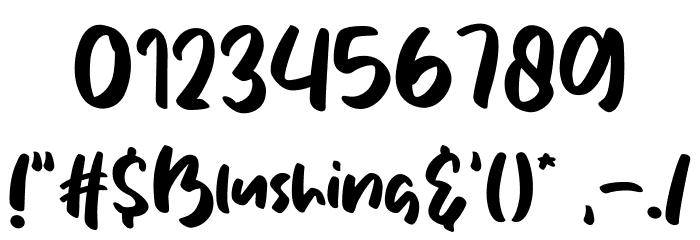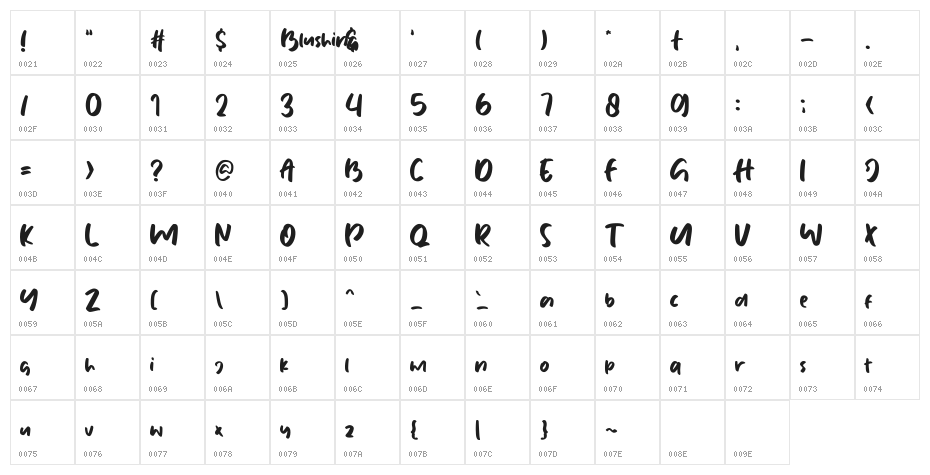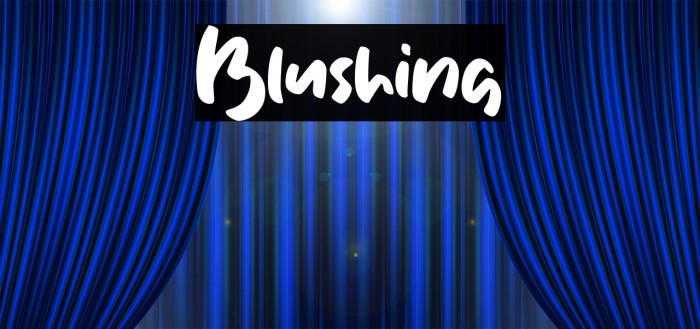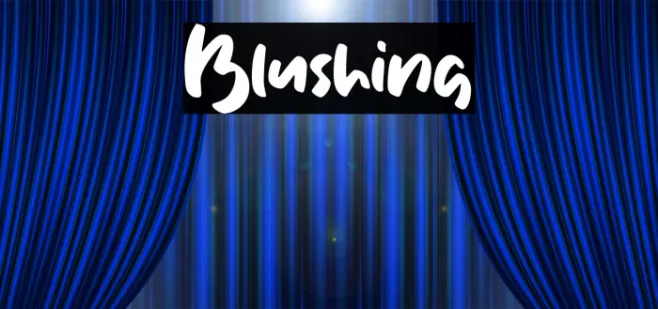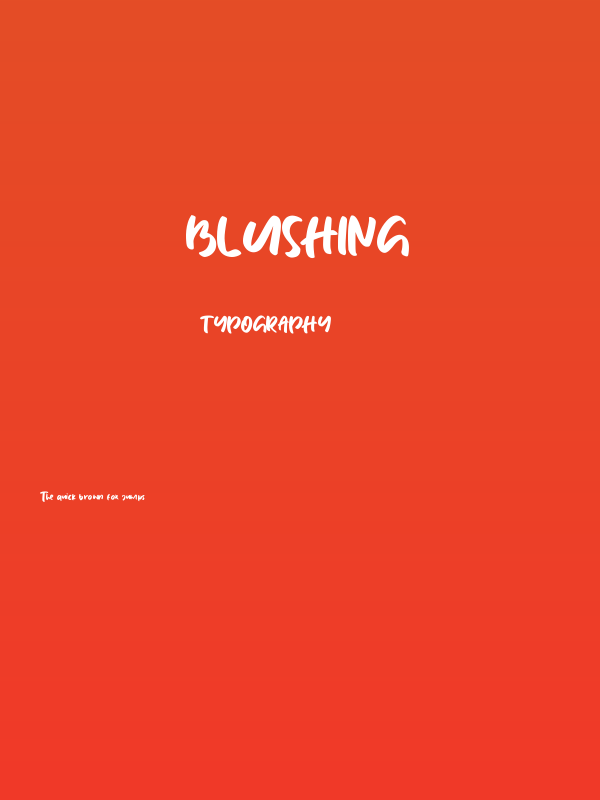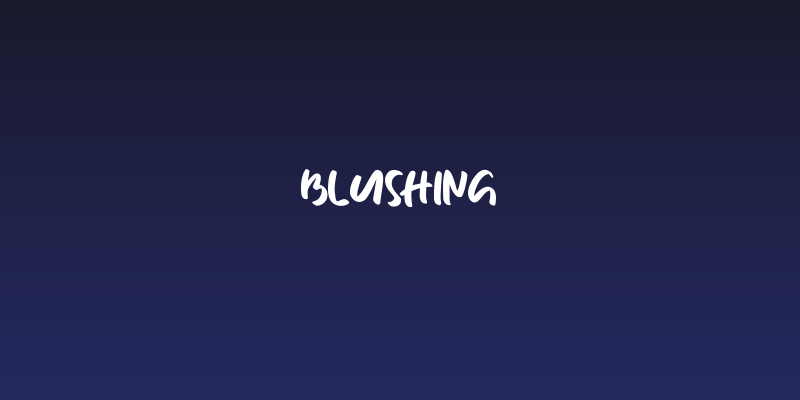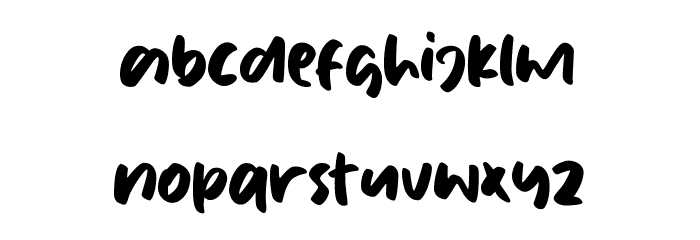
Blushing Font
Blushing Description
This font features a playful and bold handwritten style, characterized by its thick, smooth strokes and slightly irregular letterforms that give it a casual, friendly appearance. The uppercase and lowercase letters are well-balanced, with a consistent flow that maintains readability while adding a touch of personality. The numerals are equally bold, matching the overall aesthetic of the alphabet. Special characters are included, maintaining the same playful style. This font's energetic and informal nature makes it ideal for projects that require a personal touch.